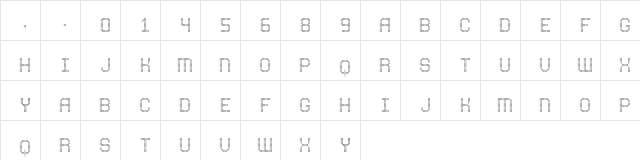
Comodot Round Bottom
Design Context for Comodot Round Typeface
Comodot Round is rooted in pixel-grid construction, making it a natural fit for game UI, retro computing aesthetics, and digital nostalgia projects.
A natural choice for retro game titles, chiptune music branding, 8-bit UI, and digital nostalgia projects.
Pro Tip: Pair Comodot Round with flat colour palettes and simple geometric UI elements to reinforce its digital aesthetic.